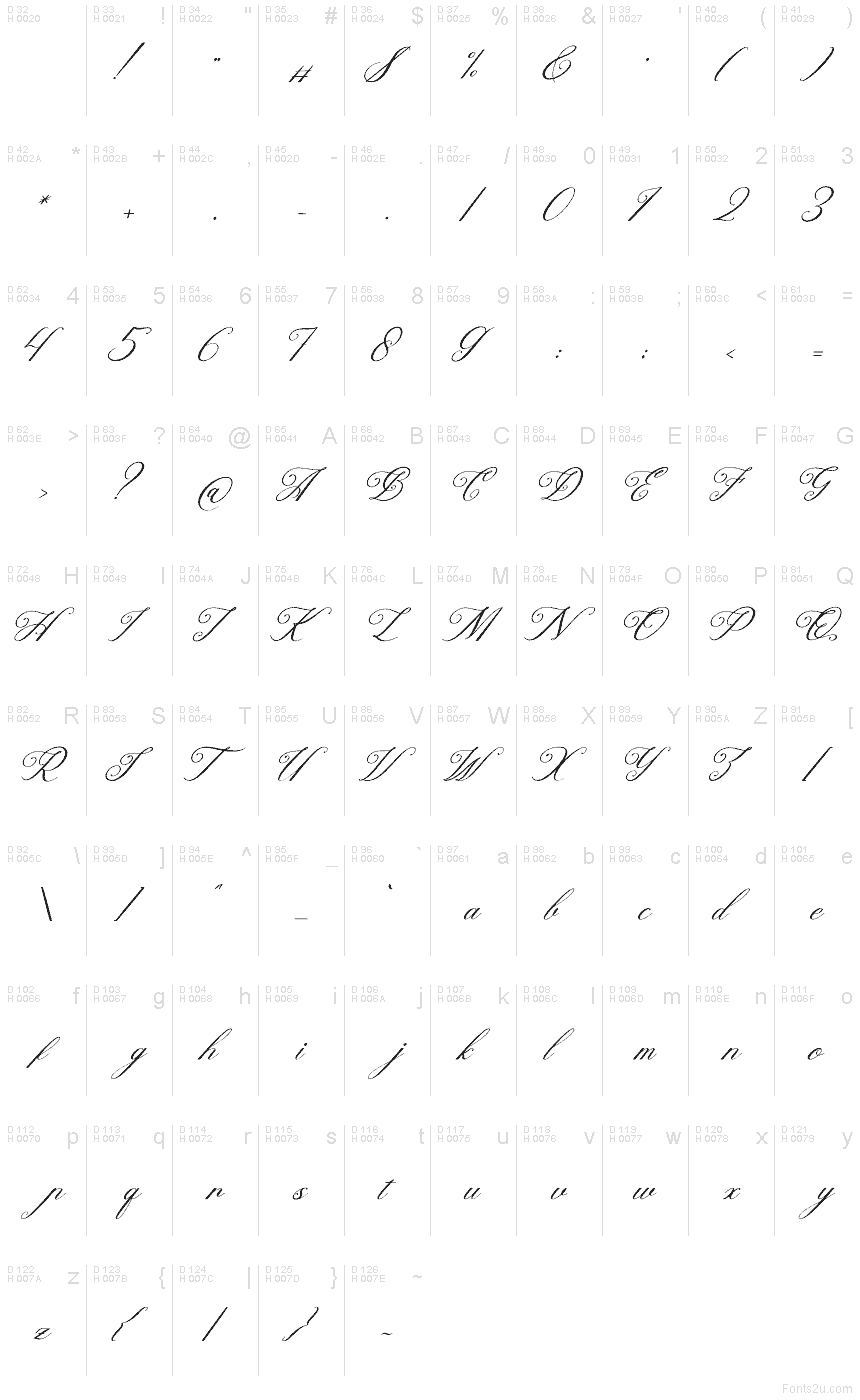
Bighried Ranbell Italic
Bighried Ranbell Italic font by Denustudios is a free calligraphy font that brings the sweep and shimmer of hand‑inked copperplate to your layouts. Its long, looping strokes, fine hairlines, and gentle slant feel like they were written with a pointed pen on thick, textured paper. The rhythm is graceful rather than showy, so it reads as refined script, not decorative clutter.
Using Bighried Ranbell Italic, you can elevate wedding invitations, event stationery, boutique logos, luxury product packaging, certificates, and keepsake quote prints. The letters link smoothly, giving wordmarks a continuous, ribbon‑like flow that photographs beautifully on cards, boxes, or labels. This free font works beautifully when you pair it with a simple sans‑serif for body text and keep Bighried Ranbell Italic for names, headings, and signature lines.